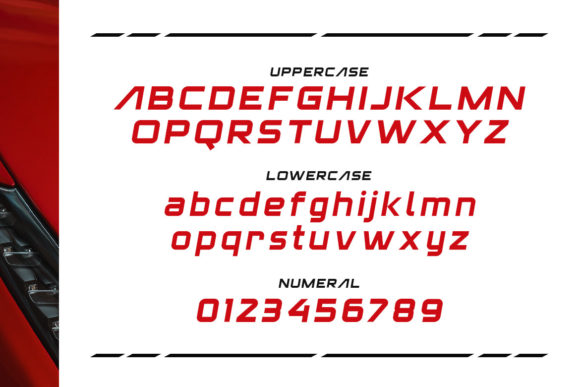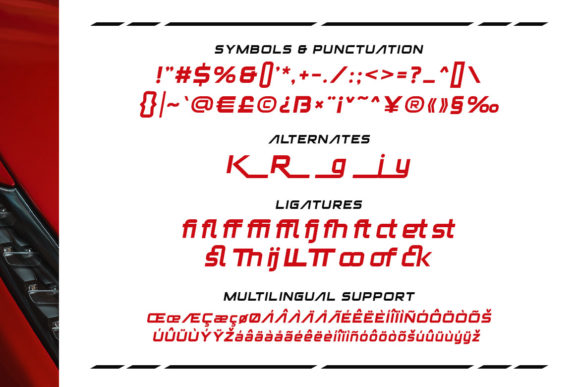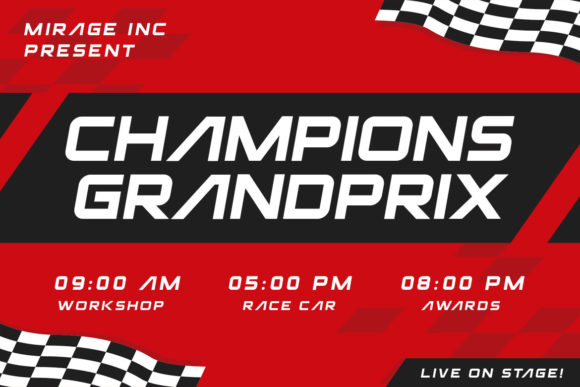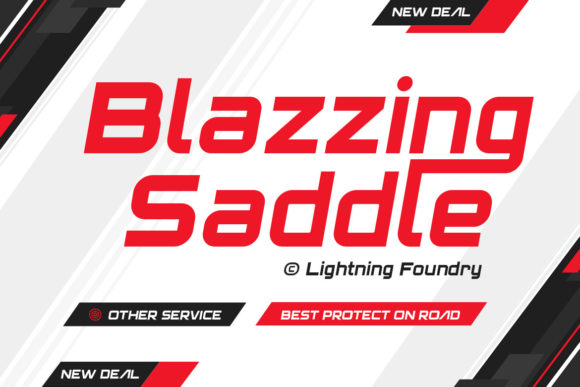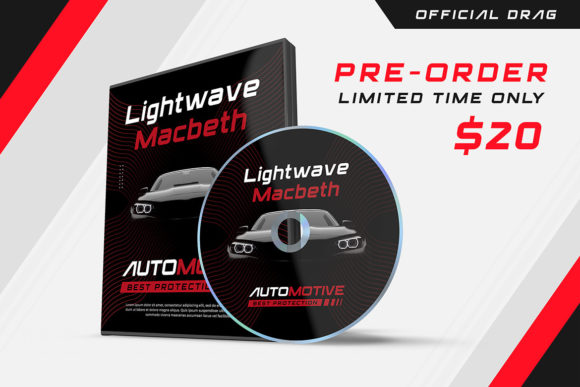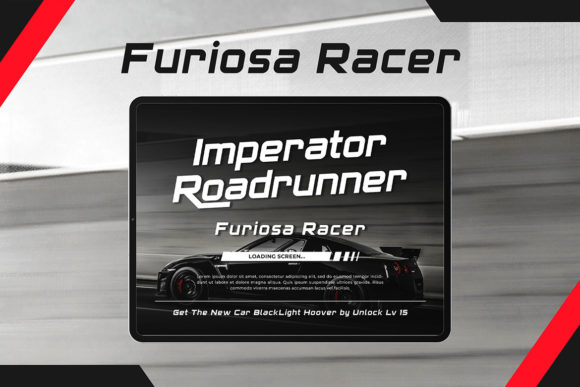
Rev Up Your Designs with Drag Racing Font
Are you looking for a font that screams speed, power, and adrenaline? Look no further than the Drag Racing Font, a cool and sporty display font that’s perfect for designers and crafters who want to add a touch of high-octane excitement to their projects.
What is Drag Racing Font?
Drag Racing Font is a specially designed typeface that’s inspired by the world of drag racing. With its bold, chunky letters and sleek lines, this font is sure to grab attention and leave a lasting impression. Whether you’re creating a logo, jersey, poster, or packaging design, Drag Racing Font is the perfect choice for adding a sporty and edgy vibe.
Key Features of Drag Racing Font
• Cool and Sporty Design: Drag Racing Font features a unique and stylish design that’s perfect for creating eye-catching headlines, logos, and branding materials.
• High-Quality Vector Graphics: This font is built with high-quality vector graphics, ensuring that it looks sharp and clear even at large sizes.
• Easy to Read: Despite its bold and chunky design, Drag Racing Font is surprisingly easy to read, making it perfect for use in a variety of applications.
• Versatile: Drag Racing Font can be used for a wide range of projects, from jerseys and logos to posters, packaging, and advertising.
Uses for Drag Racing Font
Drag Racing Font is an incredibly versatile typeface that can be used in a variety of creative projects. Here are just a few ideas to get you started:
• Headlines and Titles: Use Drag Racing Font to create bold and eye-catching headlines for your blog posts, articles, and social media updates.
• Jerseys and Apparel: Design custom jerseys, t-shirts, and hats with Drag Racing Font for a sporty and stylish look.
• Logos and Branding: Create a memorable logo for your business or brand with Drag Racing Font, perfect for use on business cards, letterheads, and website headers.
• Posters and Flyers: Design eye-catching posters and flyers with Drag Racing Font to promote your event, product, or service.
• Packaging and Advertising: Use Drag Racing Font to add a touch of excitement to your product packaging, ads, and marketing materials.
Why Choose Drag Racing Font?
With so many fonts to choose from, why should you choose Drag Racing Font for your next project? Here are just a few reasons:
• Unique and Memorable: Drag Racing Font is a one-of-a-kind typeface that’s sure to grab attention and leave a lasting impression.
• High-Quality Design: This font is built with high-quality vector graphics, ensuring that it looks professional and polished.
If you’re looking for a font that screams speed, power, and adrenaline, look no further than Drag Racing Font. With its cool and sporty design, high-quality vector graphics, and versatility, this font is perfect for designers and crafters who want to add a touch of excitement to their projects. Whether you’re creating a logo, jersey, poster, or packaging design, Drag Racing Font is sure to rev up your designs and leave a lasting impression.